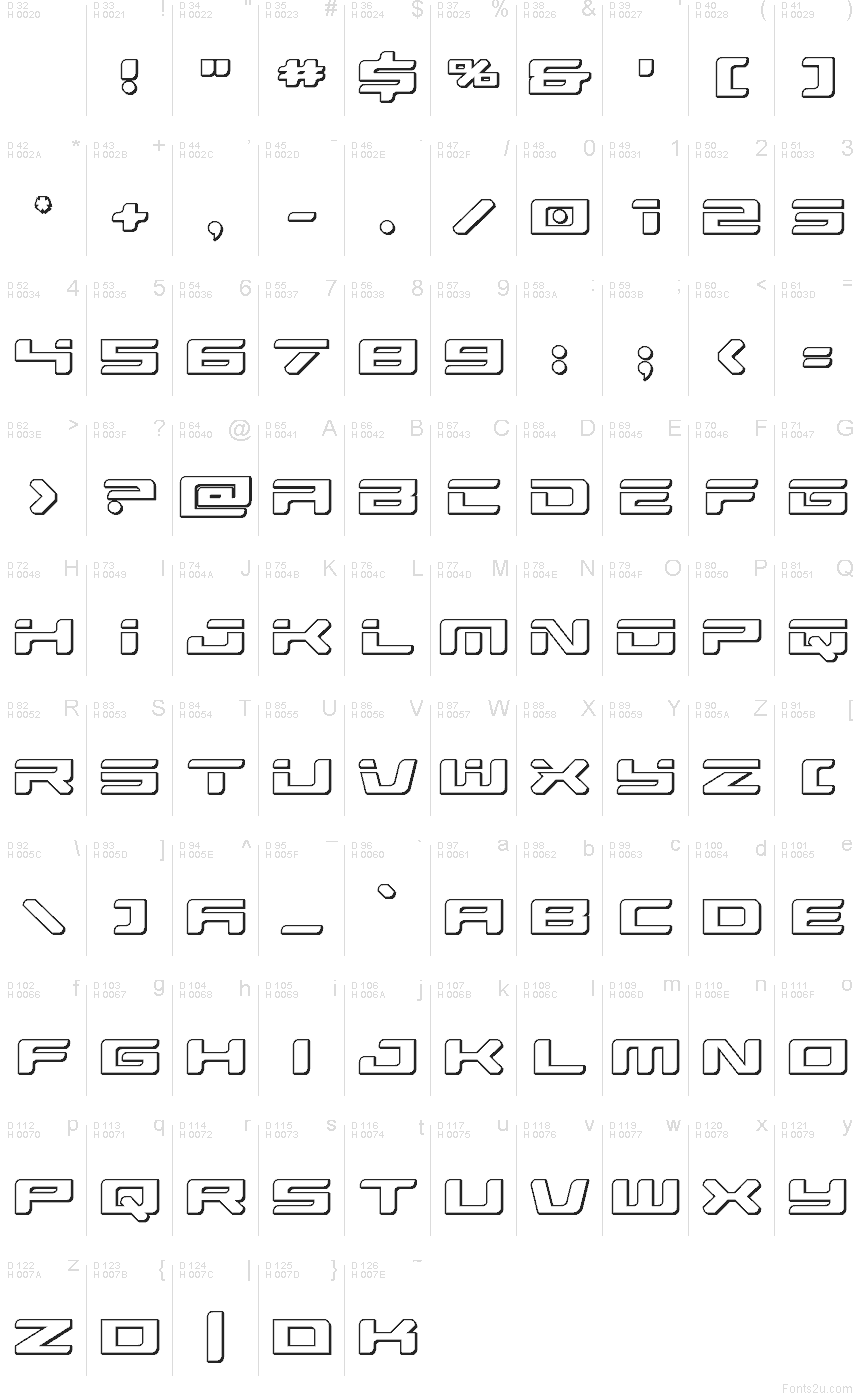
Race Pod 3D
Race Pod 3D font by Iconian Fonts is a free 3D techno display typeface from the Race Pod family that looks like it was cut from sleek, polished metal. Its squared curves, inner outline, and subtle dimensional effect give every word a sense of speed, like a racing HUD or a futuristic dashboard readout. The spacing is tight and energetic, so headlines feel compact and powerful rather than bulky.
Using Race Pod 3D, you can brand esports teams, racing events, arcade cabinets, sci‑fi posters, YouTube gaming thumbnails, and futuristic product packaging with the same kinetic energy. This free font shines when you set it large and bold, then pair it with a simple geometric sans for small text to keep the visuals clean and easy to scan.